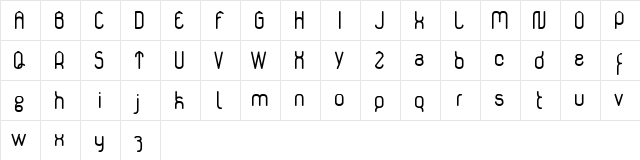
Genikas Genikas
| Foundry | BenoԴ Sjڨolm |
| Designer | BenoԴ Sjڨolm |
Design Context for Genikas Typeface
Genikas is a composed and adaptable typeface that performs quietly and consistently across a wide range of design contexts.